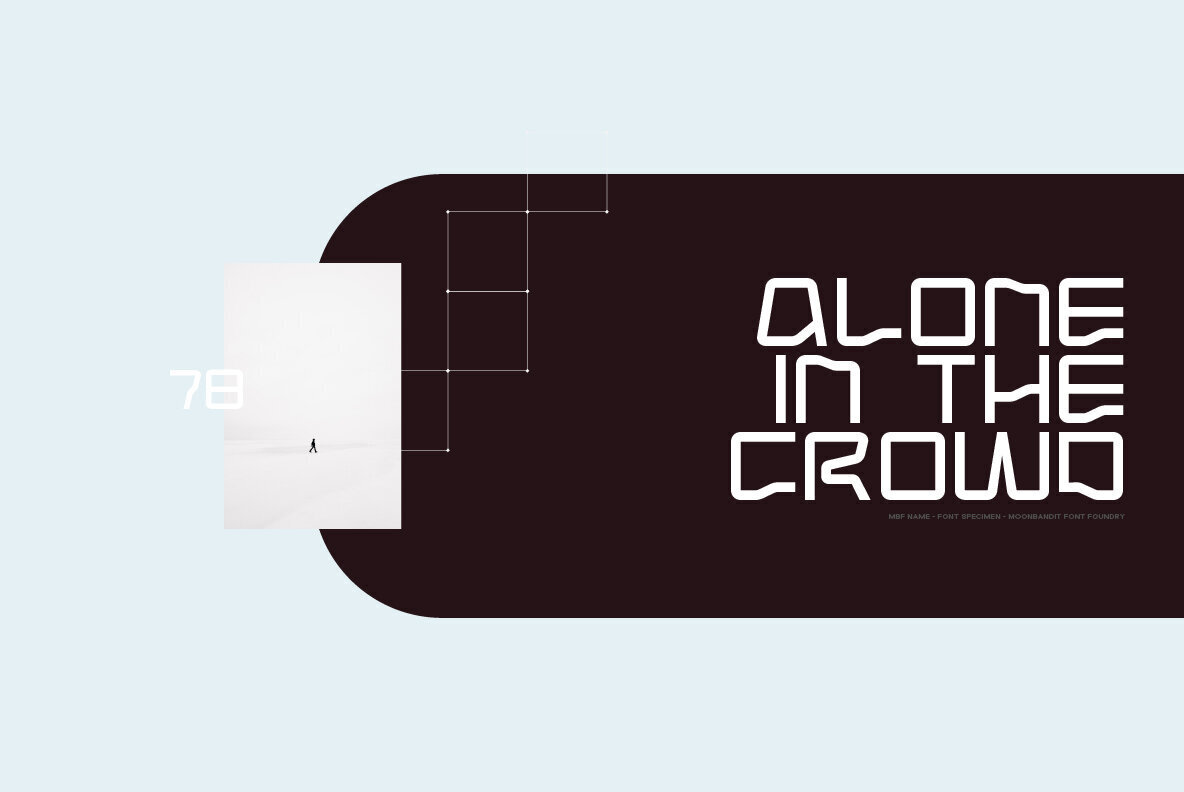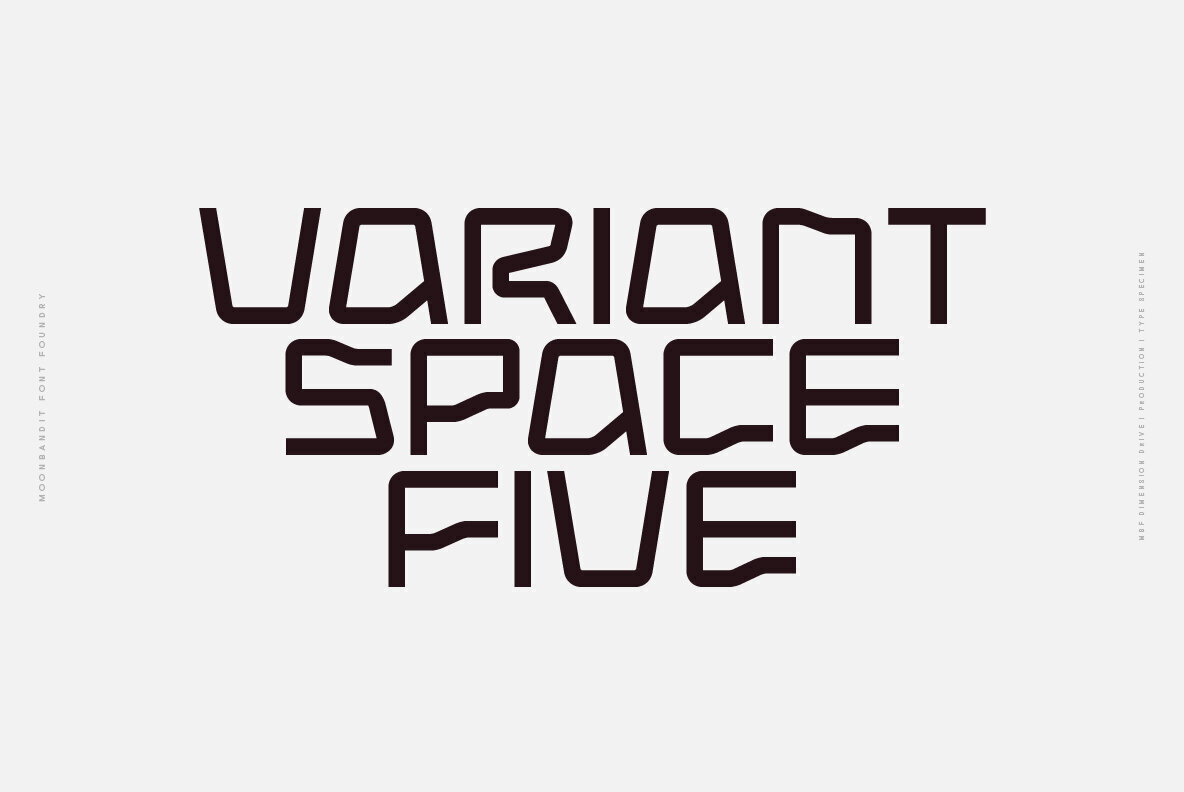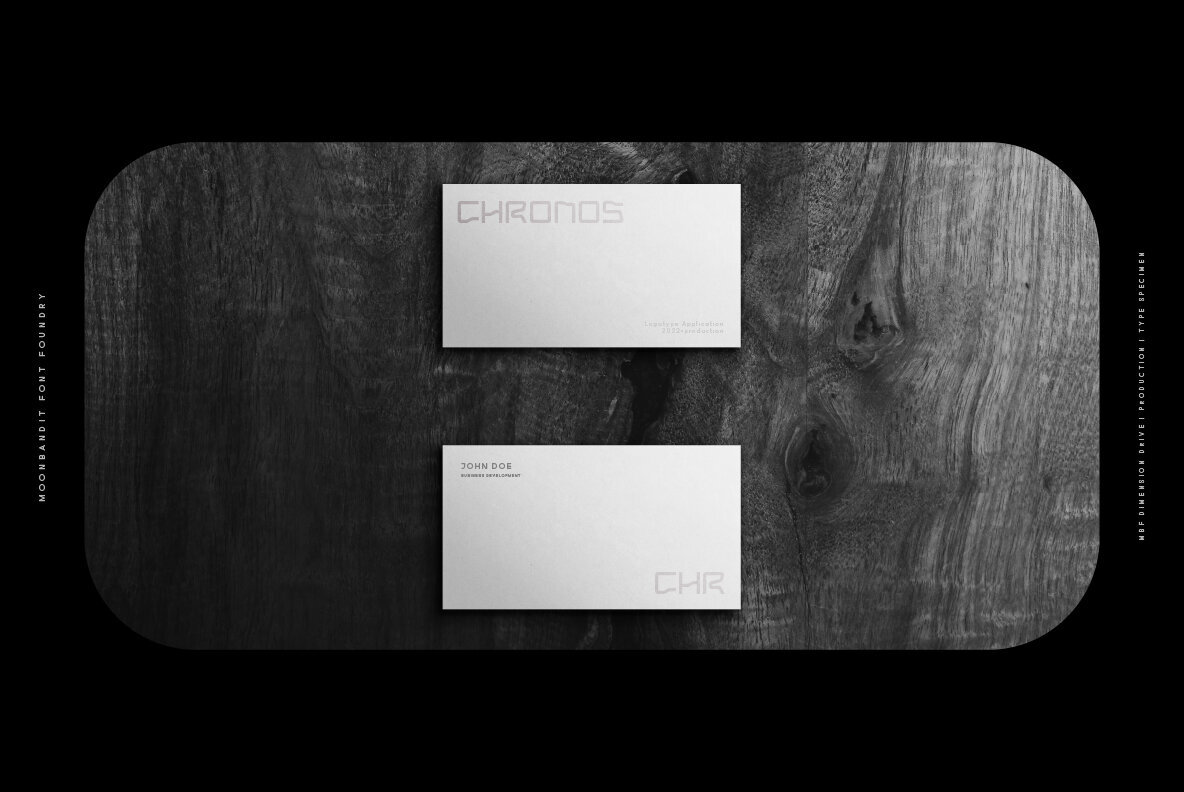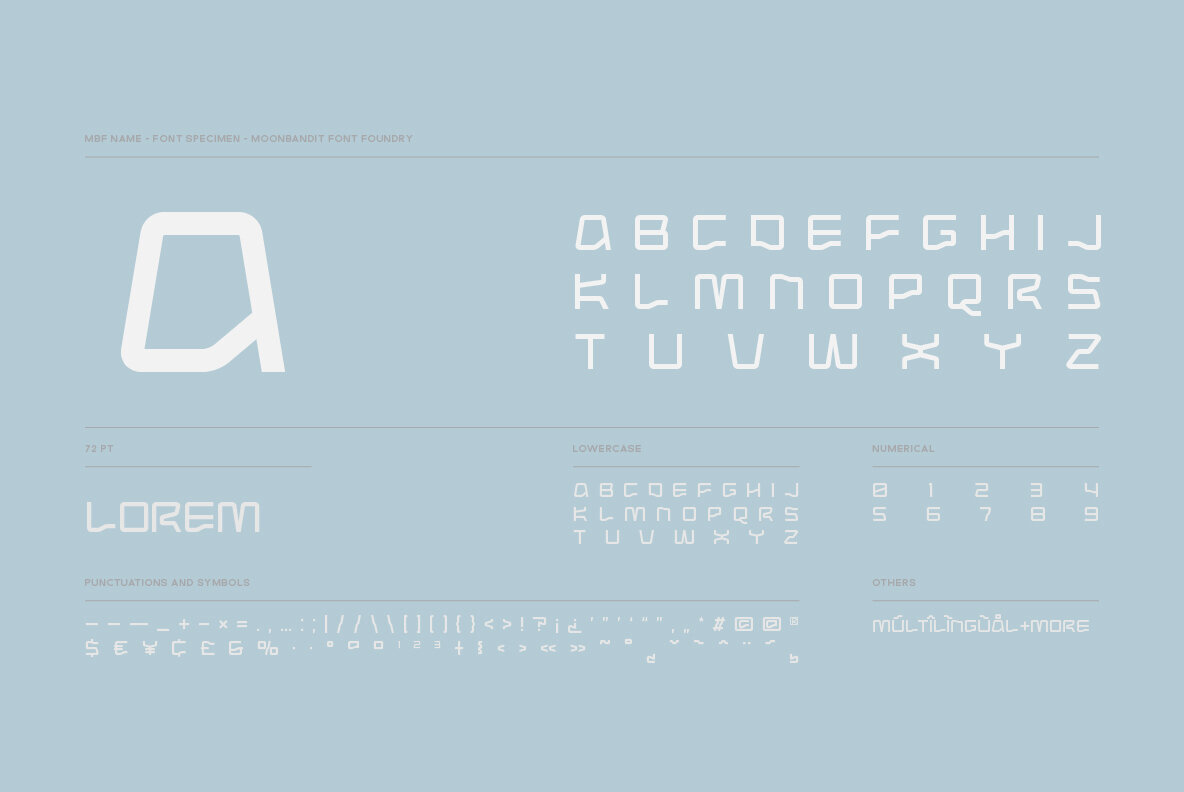
MBF Dimension Drive Font
MBF Dimension Drive
Dimension drive is a modern wide and quirky sans serif display font. Wavy lines paired with geometric and sharp edge to emphasize dynamic in the design. This typeface design is a perfect for a modern theme. Best usage on logo, poster, display, headline, t-shirt design and many more.